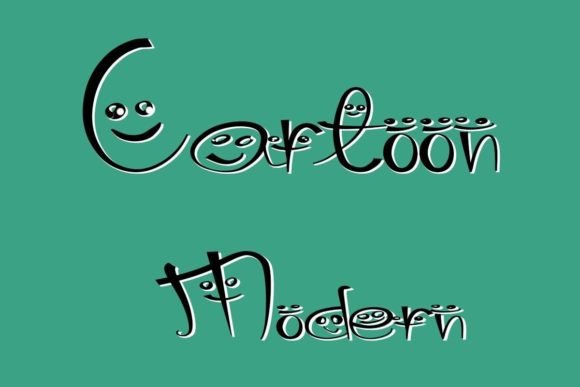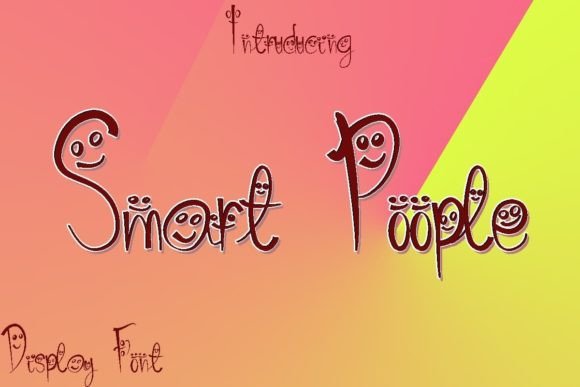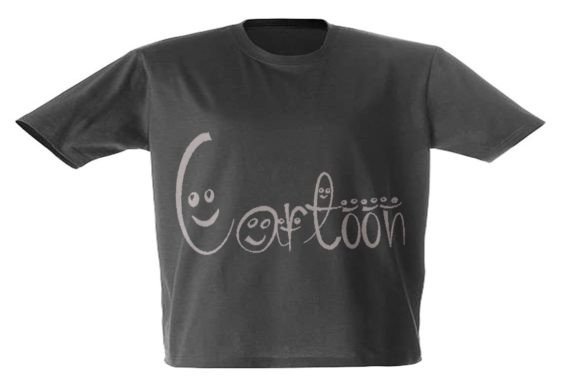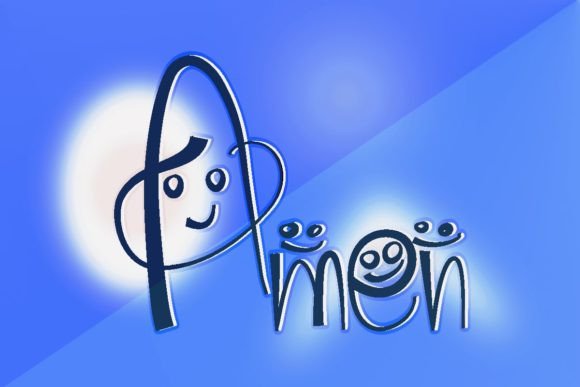
The Joy of Cartoon Modern Font: A Designer’s New Best Friend
I still remember the design project that led me to discover the Cartoon Modern Font. I was working on a whimsical children’s book, and my client requested a font that was both playful and easy to read. I scoured the internet, tried out dozens of fonts, but nothing seemed quite right. That was until I stumbled upon Cartoon Modern Font. Its cute, jolly, and paint-brushed decorative style instantly won me over. In this article, I’ll share my experience with this delightful font, its features, and how to make the most of it in your designs.
- ✨ Cute and Whimsical: Cartoon Modern Font is perfect for designs that require a playful touch. Its unique style adds a dash of personality to any project.
- ✅ Easy to Read: Despite its decorative nature, this font remains surprisingly legible, making it suitable for body text and headings.
- 💡 Versatile: From children’s books to craft tutorials, and social media graphics, Cartoon Modern Font can be used in a wide range of applications.
While Cartoon Modern Font is an excellent choice for many projects, it’s not without its limitations. For instance:
- 🤔 Limited Formality: This font is inherently informal, which might make it less suitable for projects requiring a high level of professionalism or corporate identity.
- ⚠️ Overuse: As with any font, using Cartoon Modern Font excessively can lead to visual fatigue. Balance is key.
The Story Behind Cartoon Modern Font
Cartoon Modern Font was designed with the intention of capturing the playful essence of hand-painted signs and children’s book illustrations. Its creator aimed to produce a font that felt both nostalgic and refreshingly modern. While the exact details of its creation might be shrouded in mystery, it’s clear that the designer succeeded in crafting a typeface that’s both whimsical and functional.